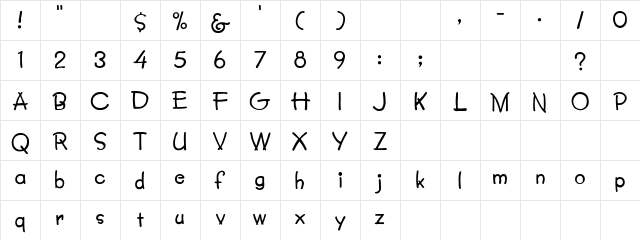
Lumparsky Regular Free Font
Lumparsky Regular
Design Context for Lumparsky
Lumparsky is a composed and adaptable typeface that performs quietly and consistently across a wide range of design contexts.